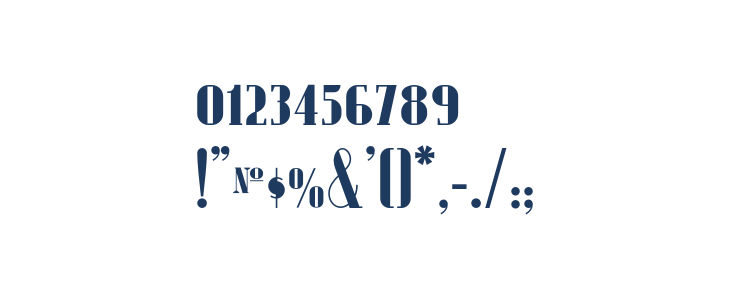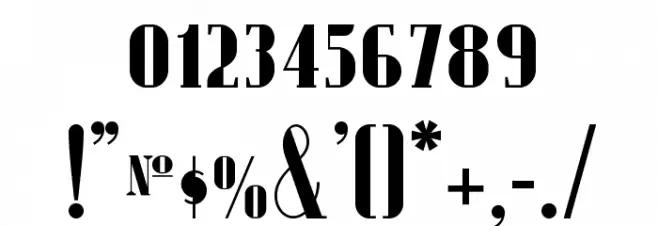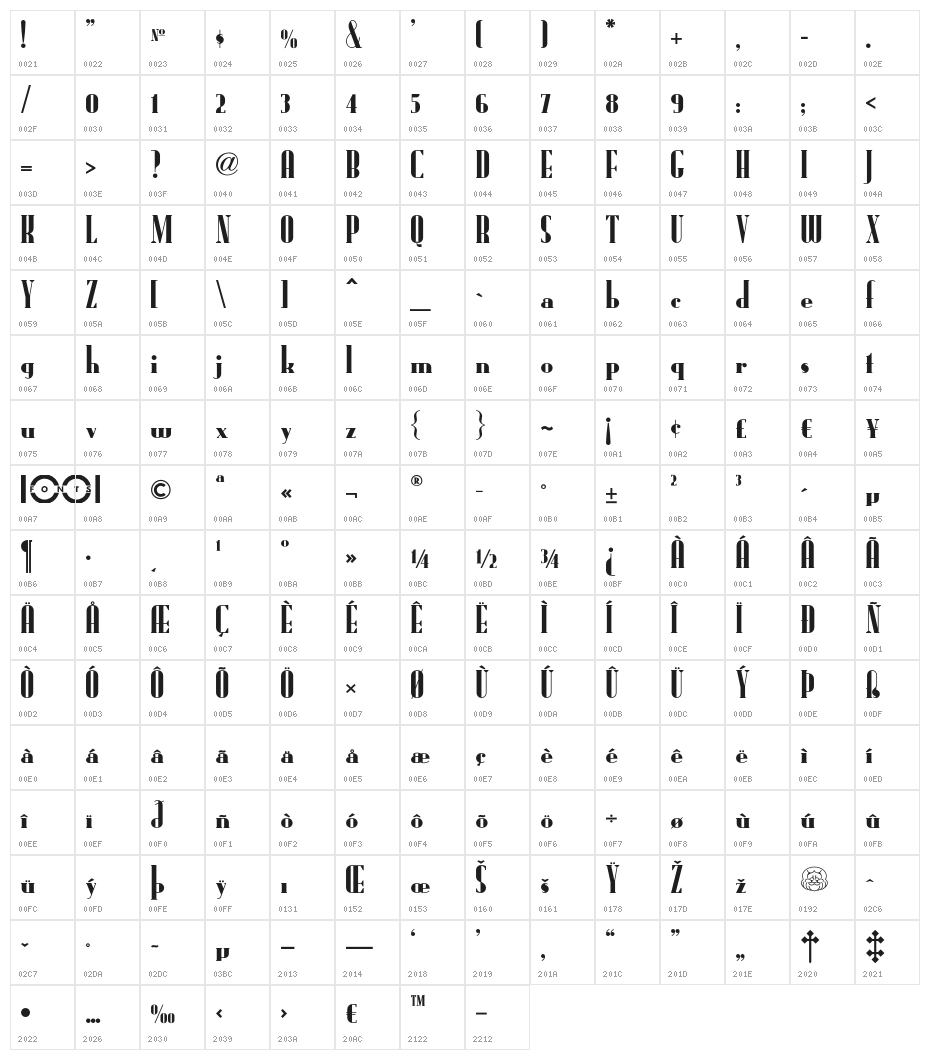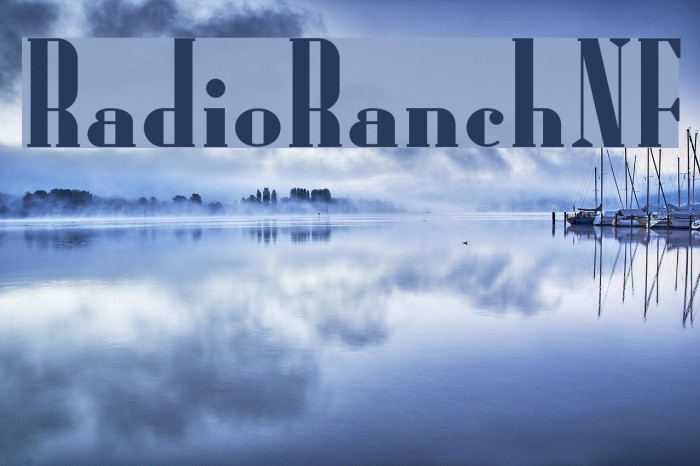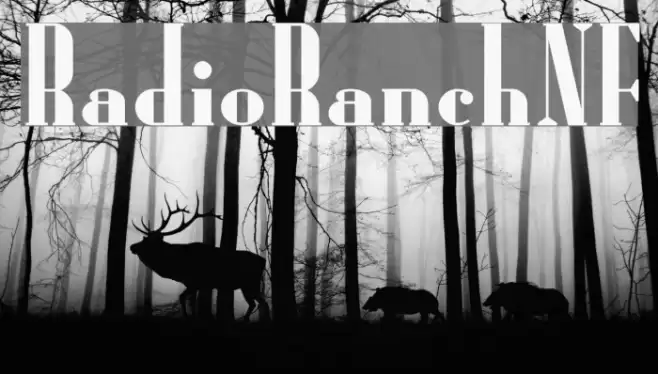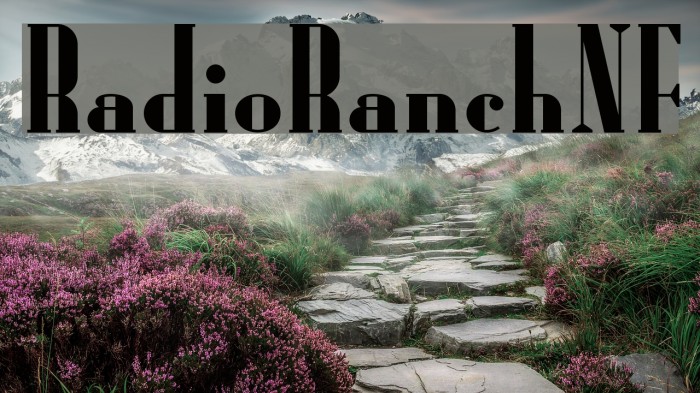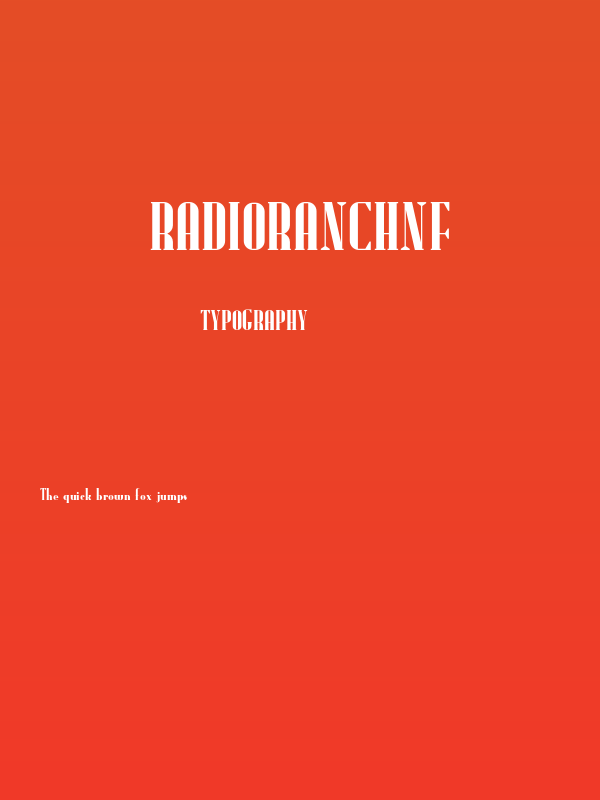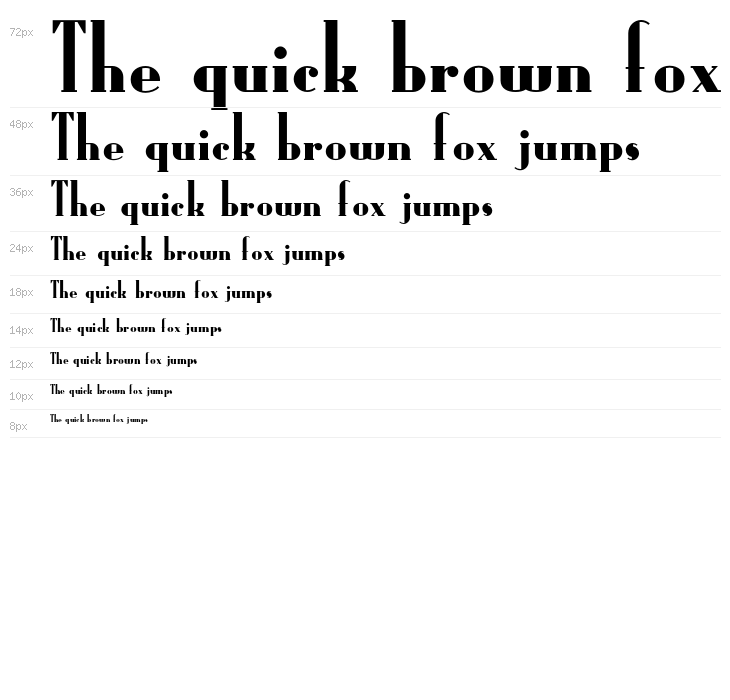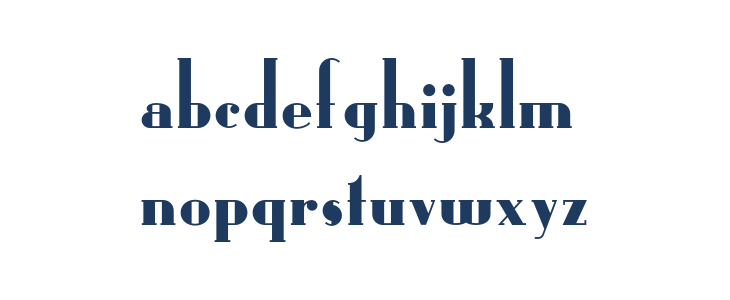
RadioRanchNF Font
RadioRanchNF Description
This font features a bold and striking design with a vintage flair, characterized by its tall and narrow letterforms. The uppercase letters exhibit a strong presence with sharp serifs and a high contrast between thick and thin strokes, giving it a dramatic and elegant appearance. The lowercase letters maintain a consistent style, with unique curves and angles that add to its distinctiveness. The numerals are equally bold, ensuring readability and impact. Special characters are designed with the same attention to detail, making them suitable for various decorative purposes.
| Proposed Projects | Ideal for retro-themed posters, branding, headlines, and signage that require a strong visual impact. |